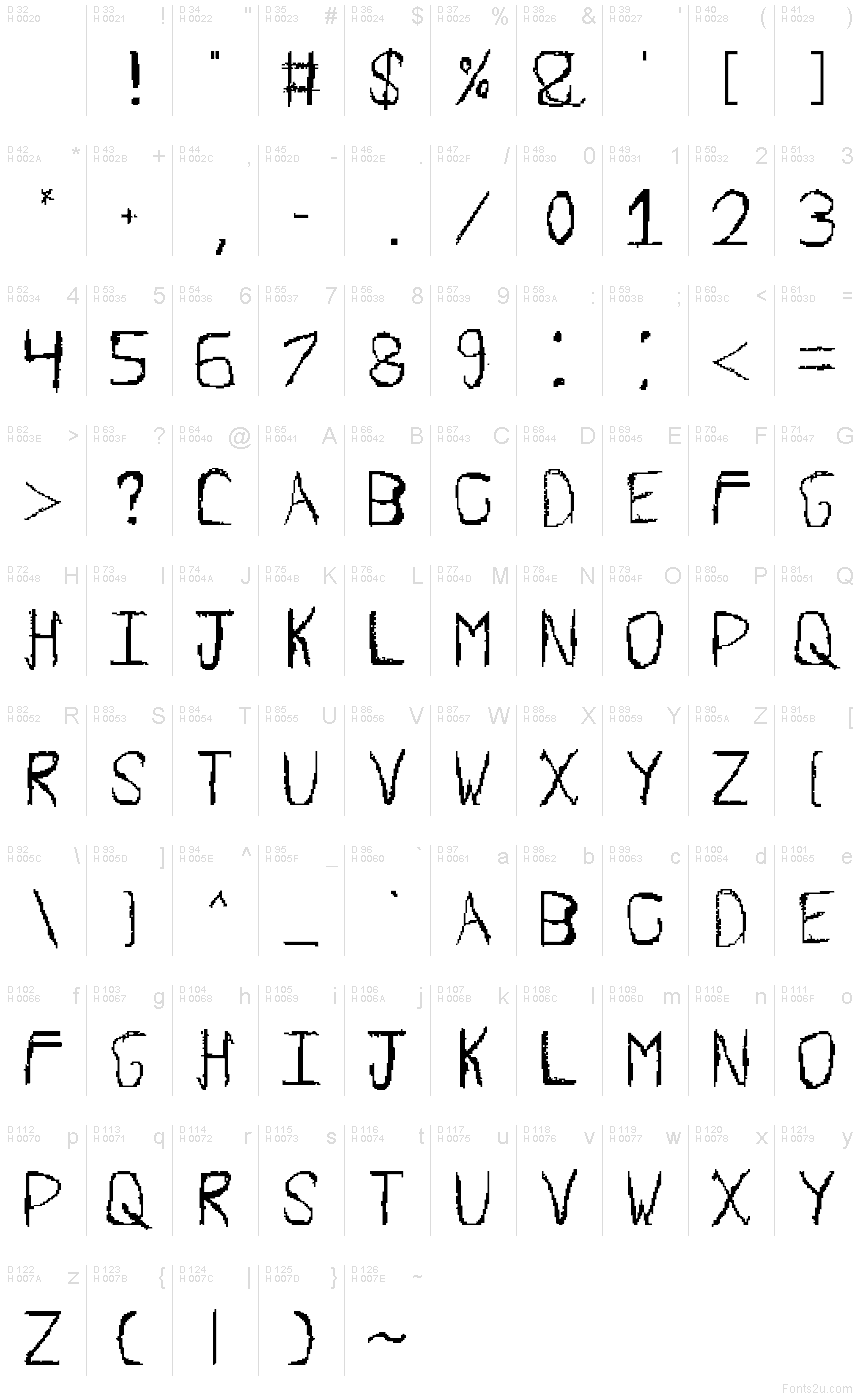
Swamp Pixel Regular
Swamp Pixel font by Blobify is a free techno display font with a unique, pixelated character. Its jagged and tapered lines leave an irregular and grungy appearance that resemble the pixilation effect of older digital images. The stylistic distortion of each letter delivers an edgy, yet amusing aesthetic that embodies the entire typography.
The rugged look makes Swamp Pixel a great font for comics, game interfaces, logotypes, T-shirt designs, posters, book covers, and video titles. Websites, blogs headers and sport-themed publications can also benefit from its peculiar typography. Use it to give personality labels or album covers.
Designer description: Now with a lot of characters!
It was intended to be an experiment, but i got carried awat and made it into a font.